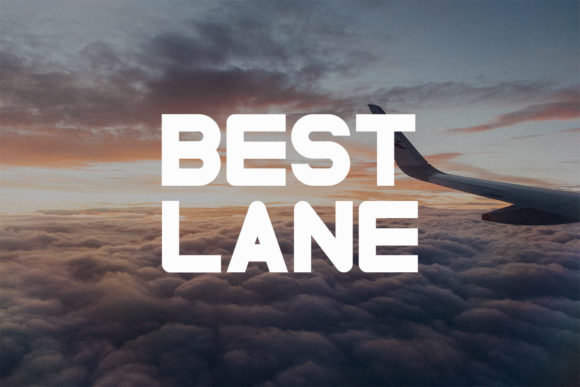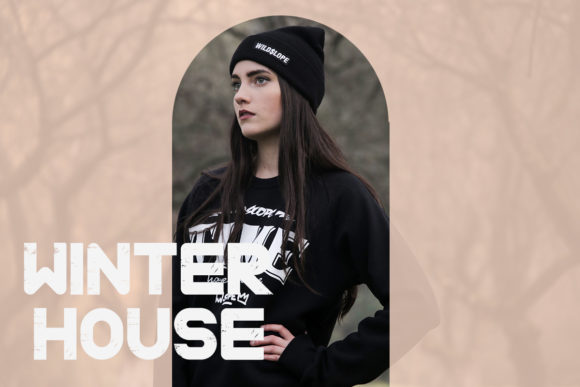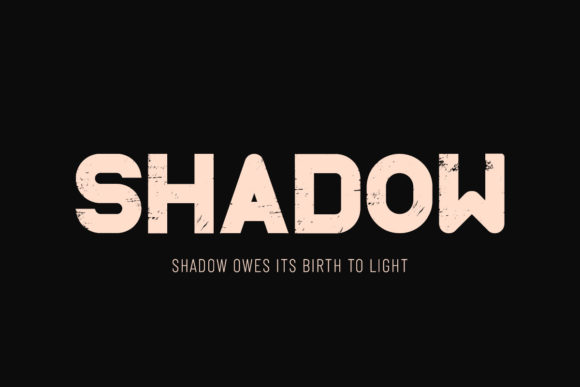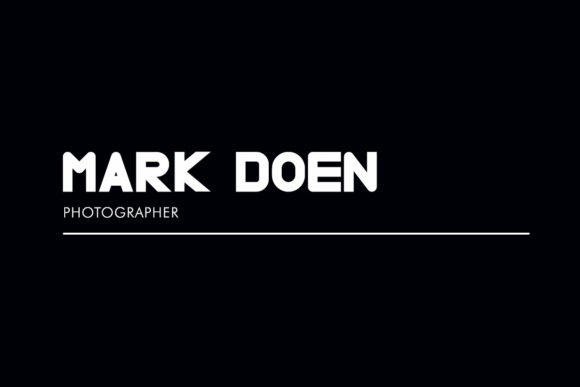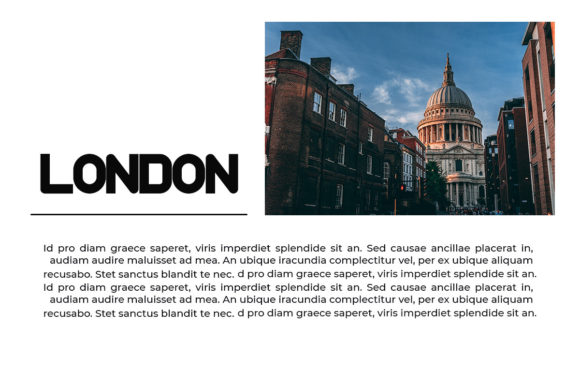
Get Ready to Rebel with the Grunge Font
You know that moment when a design idea hits you, and you just can’t wait to bring it to life? It’s like a spark of creativity that sets your imagination ablaze, and you can’t help but see the entire project unfolding before your eyes. For designers, that spark often comes from the perfect combination of typography, color, and texture. And that’s where the Grunge Font comes in – a thick and simple sans serif font that’s perfect for making your designs stand out.
The Grunge Font is more than just a font; it’s a statement piece that adds a touch of edginess to any project. Whether you’re working on a music festival poster, a streetwear brand’s logo, or a punk-inspired magazine, this font is sure to give your design a raw, unapologetic feel that’s hard to resist. For designers, the Grunge Font is a valuable tool that can help you tap into your creative potential and push the boundaries of what’s possible.
Grunge Font Key Features
- Unique Characteristics: Grunge Font features a distressed, worn look with rough edges and imperfections, giving it a unique and edgy feel.
- Font Styles: Grunge Font comes in various font styles, including Regular, Bold, Italic, and Bold Italic, providing designers with flexibility and options for their projects.
Grunge Font Review
I’ve been working with Grunge Font for a while now, and here’s my honest take on it. ✨ The font’s distressed, worn look is perfect for projects that need a bit of an edge. It’s great for adding a touch of grit to your designs, and it pairs well with bold, eye-catching colors.
One of the things I appreciate about Grunge Font is its flexibility. It comes in a range of weights and styles, from light to bold, which makes it easy to customize to suit your needs. ✨ It’s also great for creating a sense of contrast and visual interest in your designs.
- ⚠️ Readability can be an issue, especially in smaller font sizes. The distressed look can make it difficult to read certain text, especially for people with vision impairments.
- ⚠️ Limited language support. If you’re working on a project that requires a lot of non-English text, you may find that Grunge Font doesn’t support it well.
- ⚠️ May not be suitable for projects that require a lot of text. The font’s distressed look can be overwhelming, and it may not be the best choice for projects with a lot of body text.
Overall, I think Grunge Font is a great choice for projects that need a bit of an edge. It’s versatile, easy to use, and adds a touch of personality to your designs. However, it’s not without its limitations, and you should be aware of those before using it in your project.
Tips for Getting the Most Out of Grunge Font
Use Grunge Font to add a distressed or vintage look to your designs.
Pair Grunge Font with other fonts to create a unique and eye-catching combination.
Experiment with different font sizes and colors to create a bold and attention-grabbing effect.
Grunge Font is perfect for:
Music festival or concert posters
Rock band logos or branding
Vintage or retro-themed designs
Alternatives to Grunge Font for Designers
Pacifico is a beautiful, elegant script font perfect for adding a touch of sophistication to your designs. It’s ideal for use in branding, invitations, and other creative projects where a refined look is desired.
Compared to Grunge Font, Pacifico is a more polished and refined option, lacking the distressed, rough texture of Grunge Font. While Grunge Font is best suited for edgy, industrial designs, Pacifico is perfect for creating a more refined and luxurious feel.